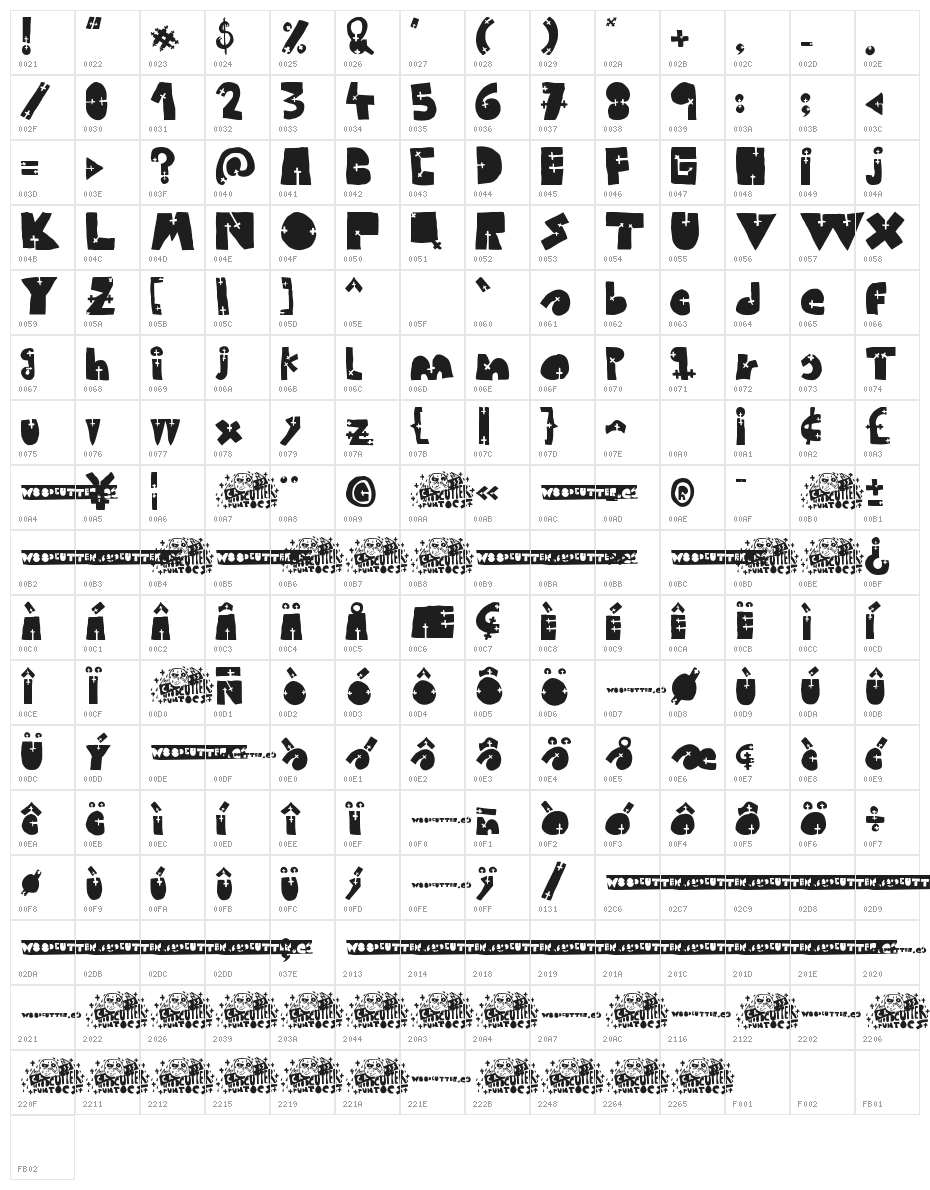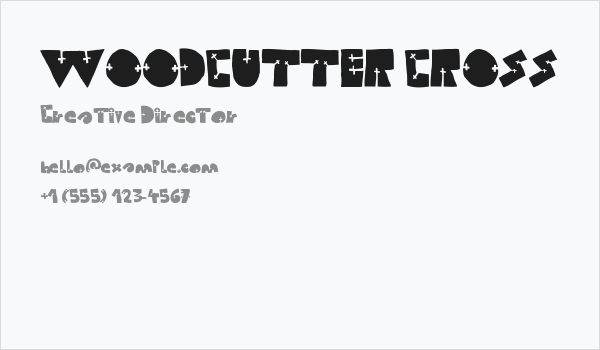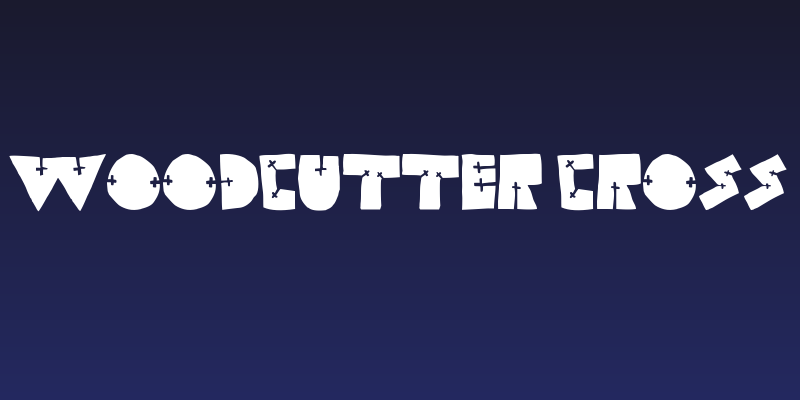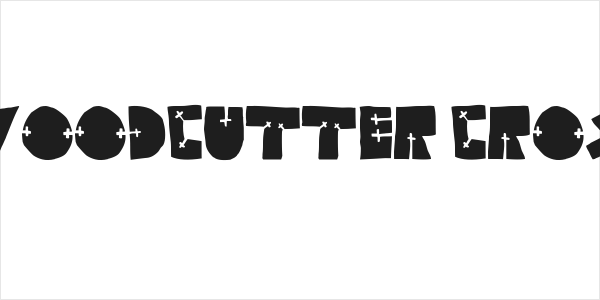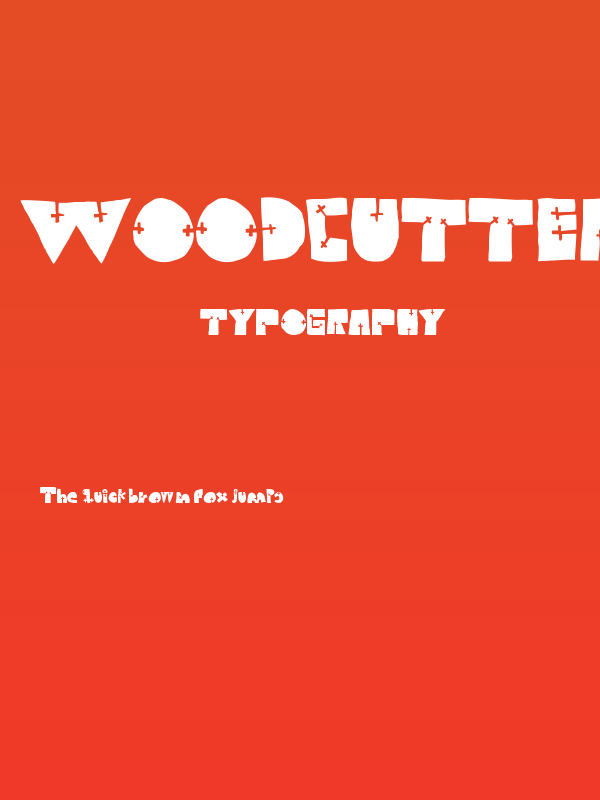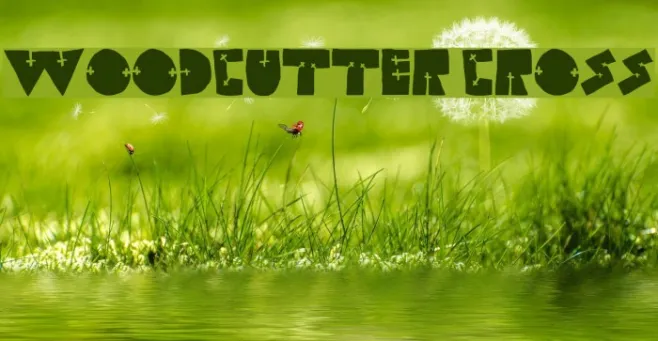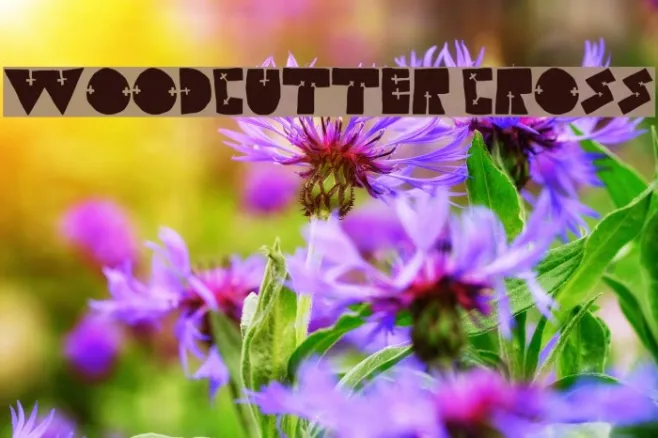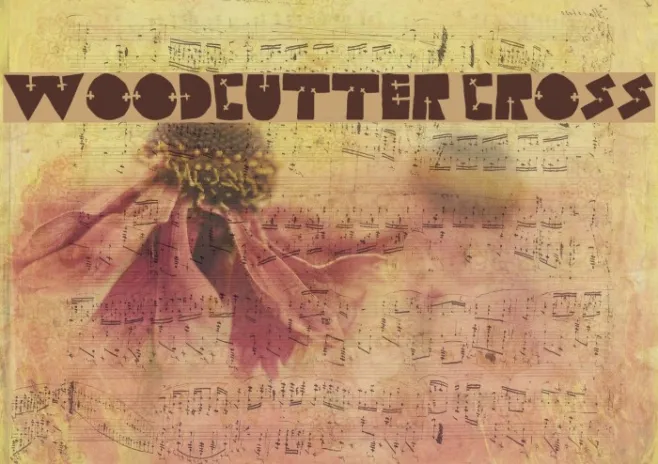
WOODCUTTER CROSS Font
WOODCUTTER CROSS Description
This font features a bold and playful design with a distinct woodcut style. Each character is uniquely crafted with irregular edges and cut-out details, giving it a handcrafted, rustic appearance. The letters are chunky and substantial, making them highly visible and impactful. The font includes both uppercase and lowercase letters, numbers, and a variety of special characters, all maintaining the same artistic theme. The overall look is reminiscent of traditional printmaking techniques, adding a touch of vintage charm to any project.
| Overall Style | Vintage, Decorative |
| Proposed Projects | Ideal for projects that require a vintage or handcrafted feel, such as posters, logos, book covers, and packaging designs. |